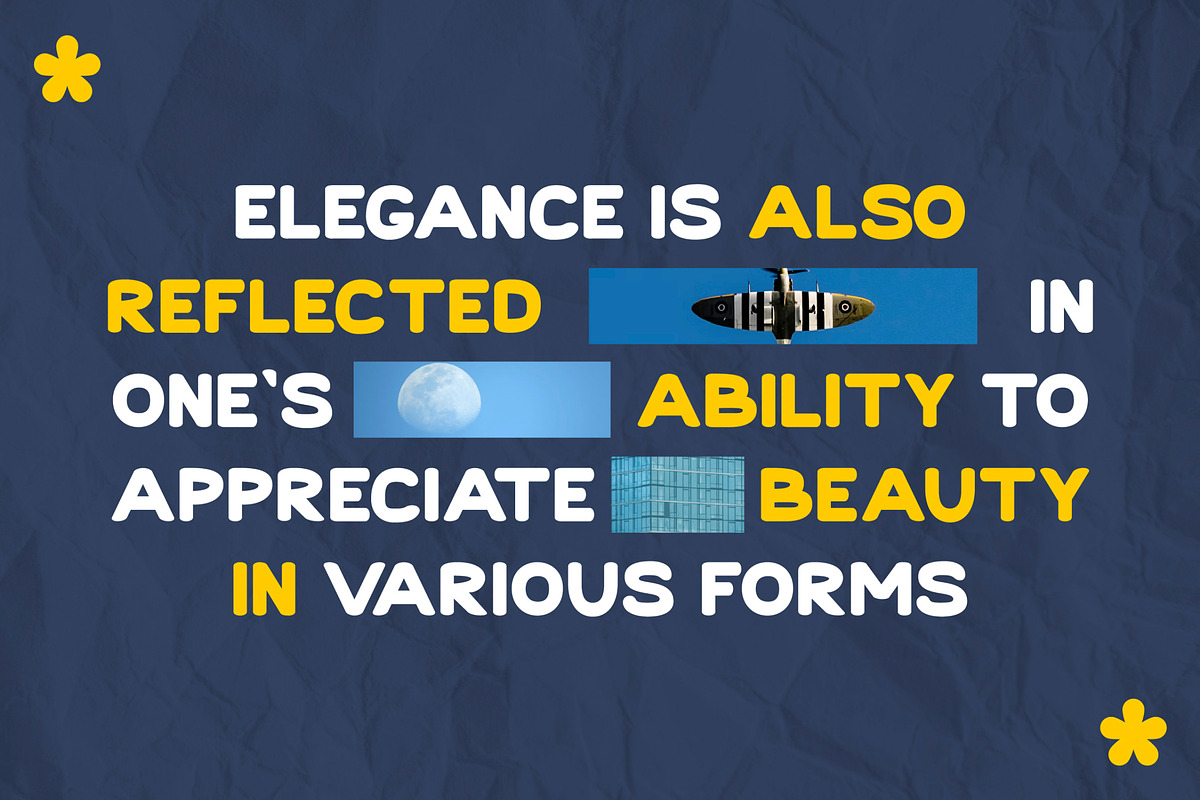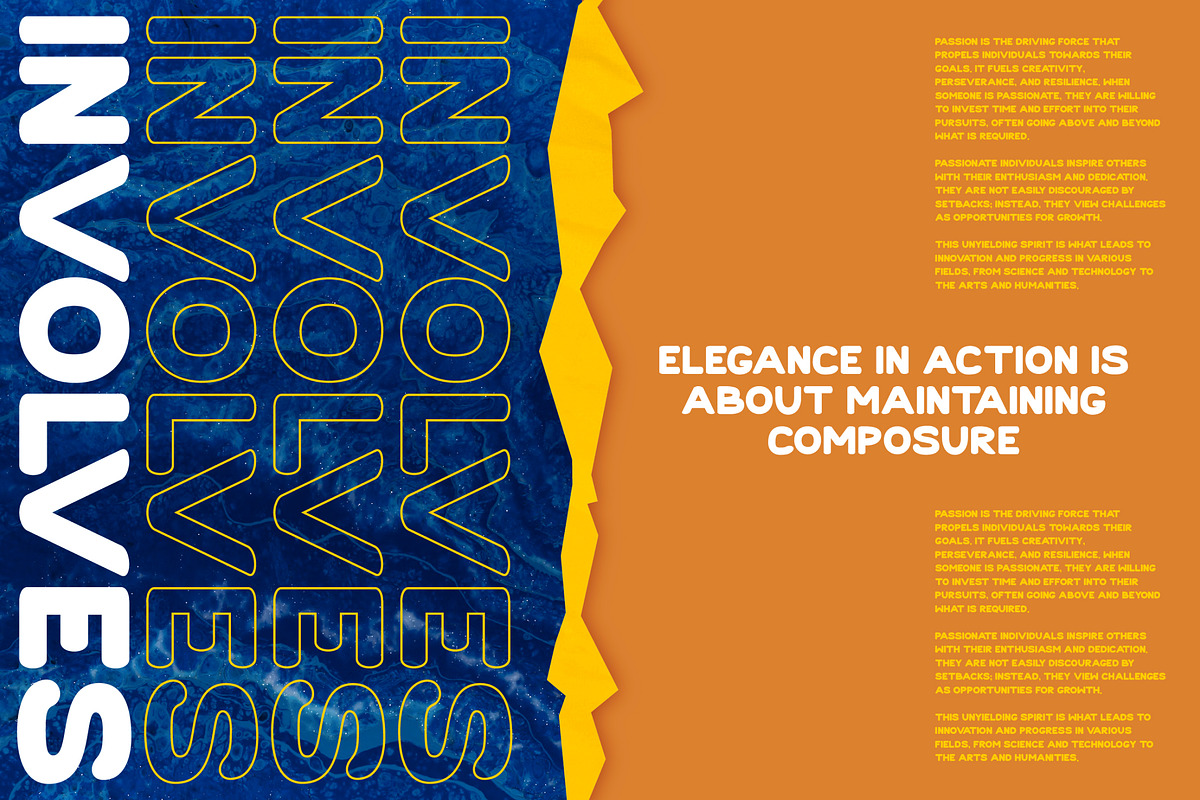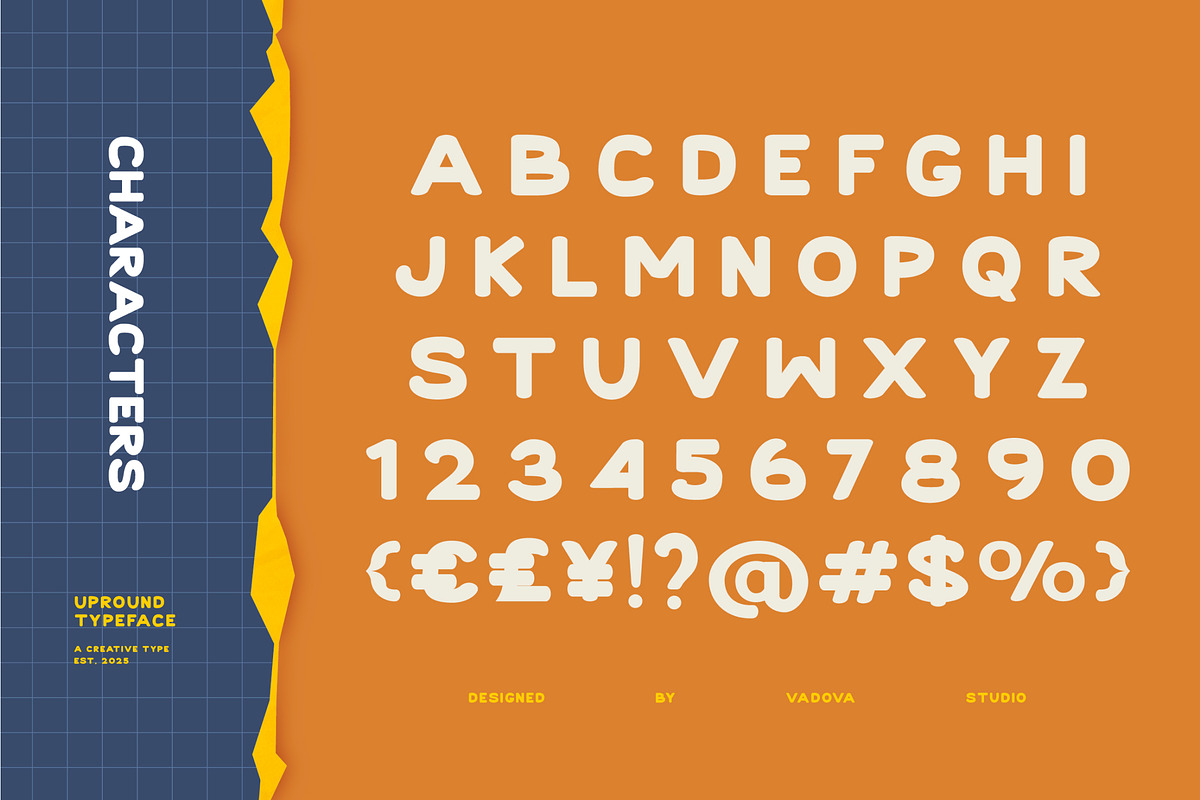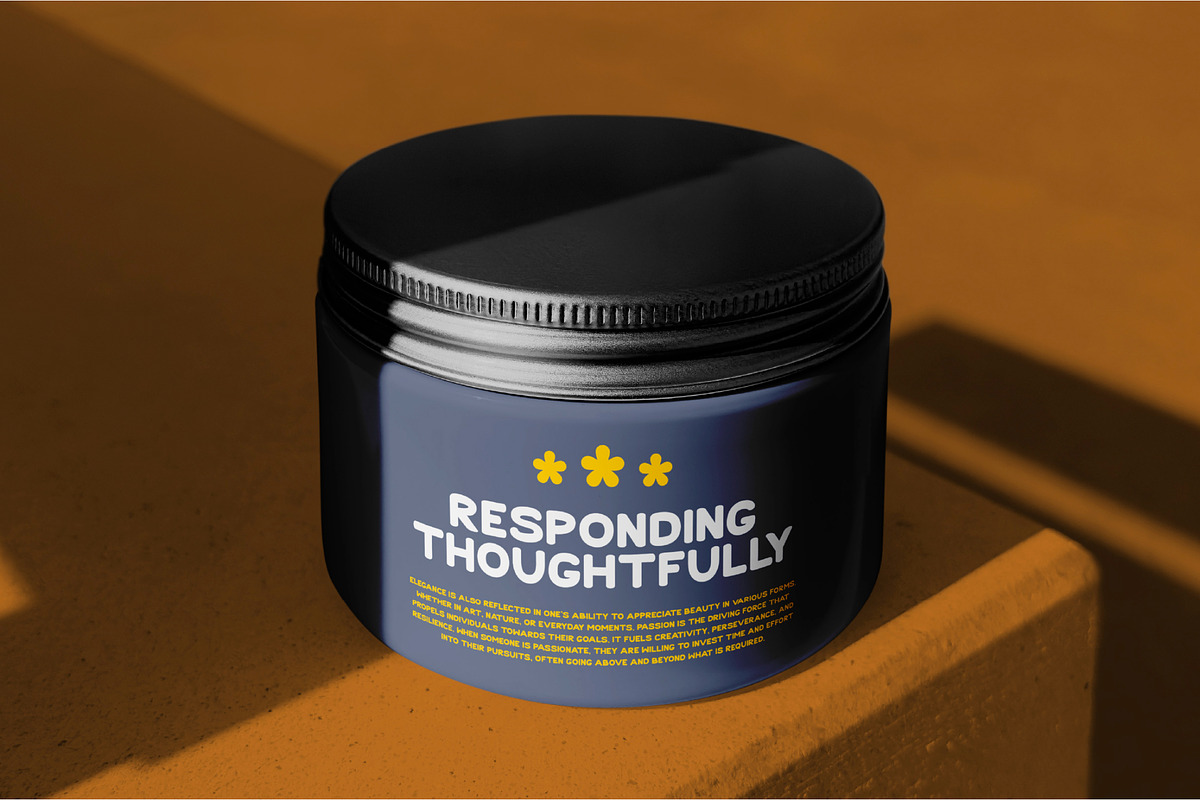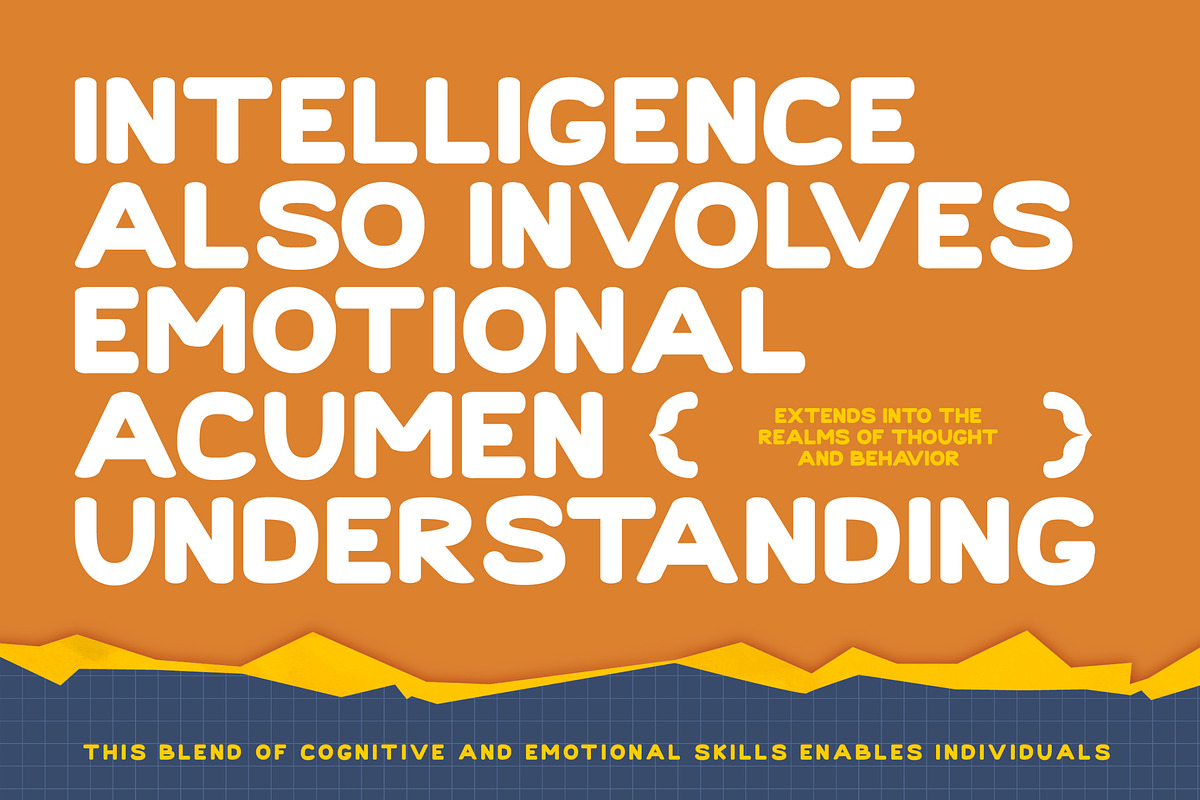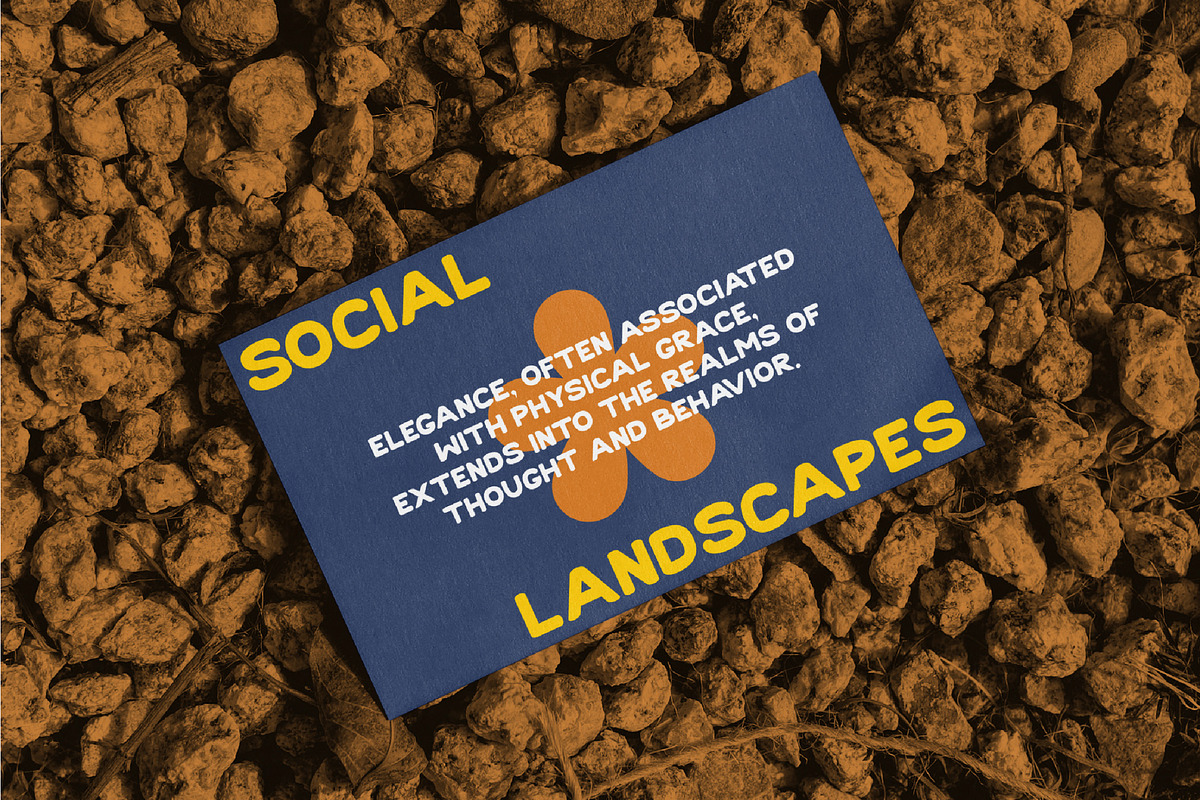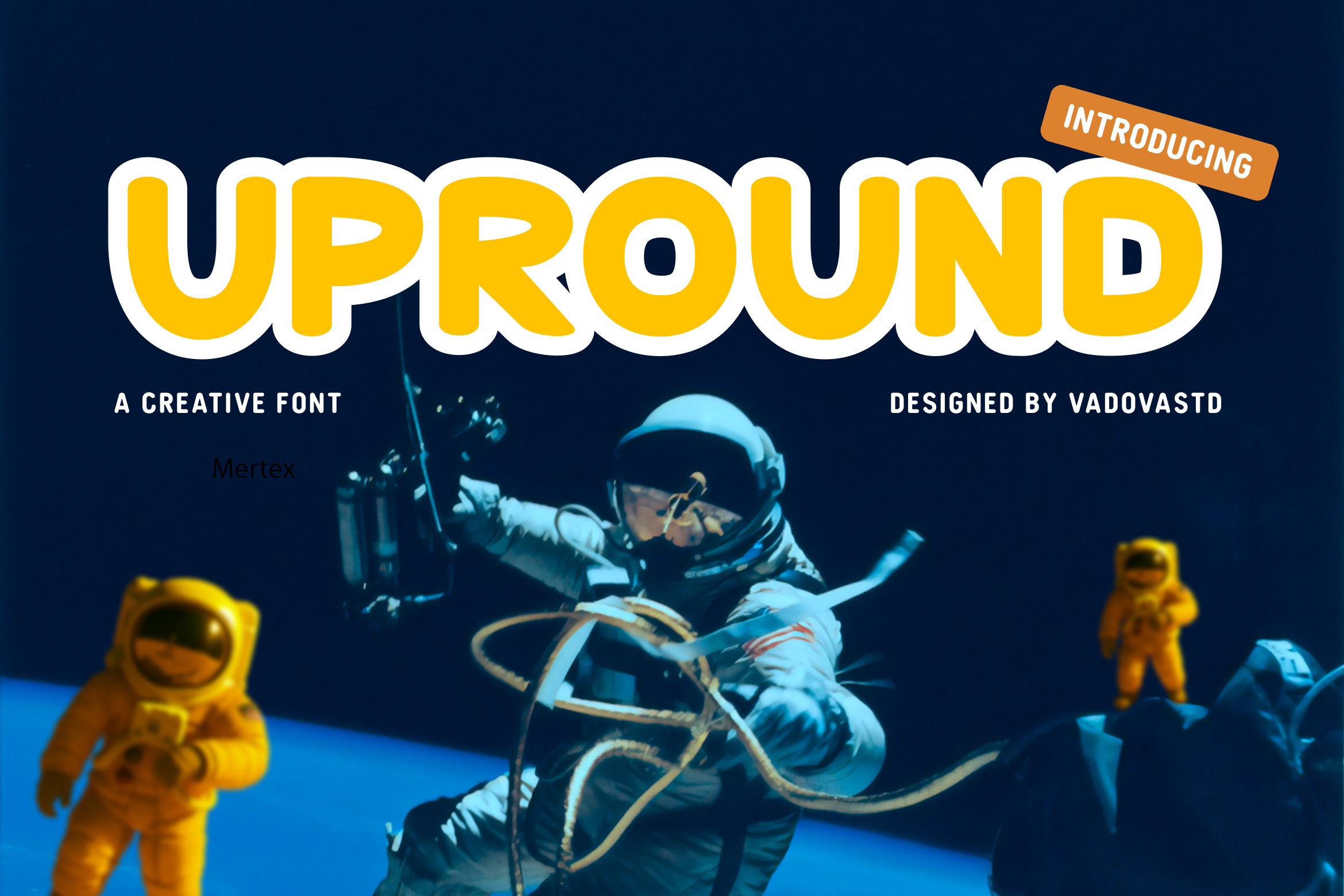
Upround – Creative Rounded Typeface
Upround is a bold and rounded creative font that brings energy, fun, and playfulness into your designs. With its soft curves and strong presence, Upround is perfect for creating eye-catching titles, packaging, and playful branding.
Its friendly bubble-inspired design makes it a versatile typeface for projects that need a mix of modern boldness and cheerful personality.
Highlights
Bold and rounded bubble design
Creative, playful, and modern look
Great for packaging, branding, and titles
Perfect for kids, fun, and lifestyle themes
Best Uses
Kids’ Branding & Books – fun and approachable lettering
Food & Snack Packaging – bold playful vibe
Creative Posters & Flyers – eye-catching rounded display
Cartoon & Animation Titles – energetic bubble font
Social Media Graphics – fun and modern look
Lifestyle Branding – youthful and bold identity
Bring fun, boldness, and creativity to your projects with Upround – Creative Rounded Typeface, the perfect choice for playful modern design.